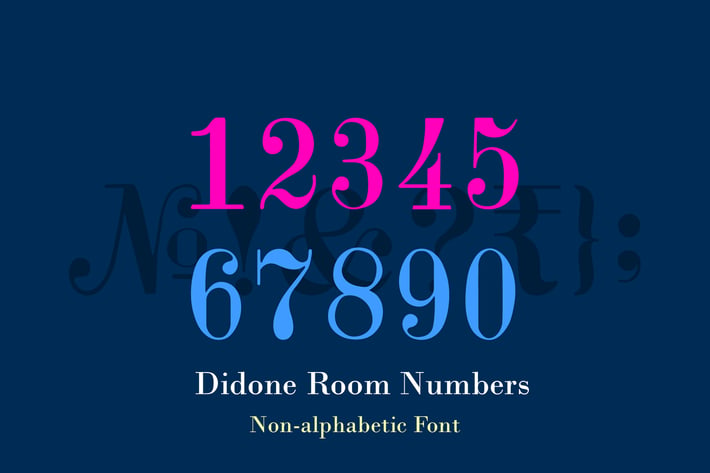
Didone Room Numbers Display Font Family
Inspired by a had painted hotel room number plate I saw in Vienna, Austria. This non-alphabetic serif font focuses on numerical and currency symbols. It clearly belongs to Didone clan of typefaces and is majorly meant to be used as a display font.